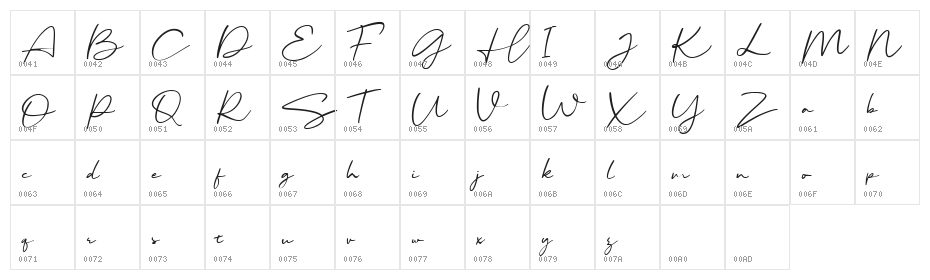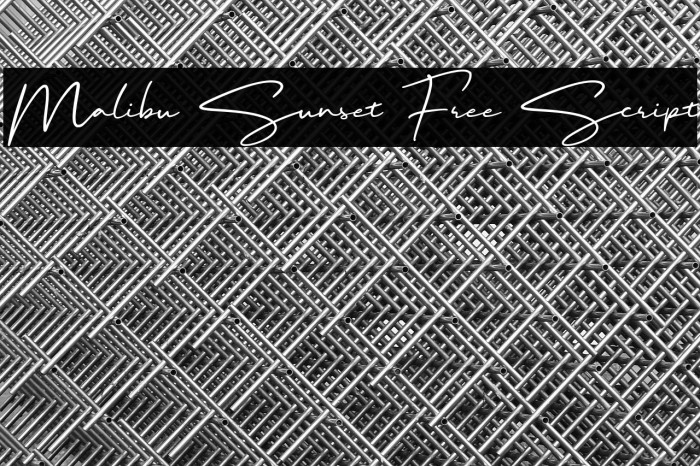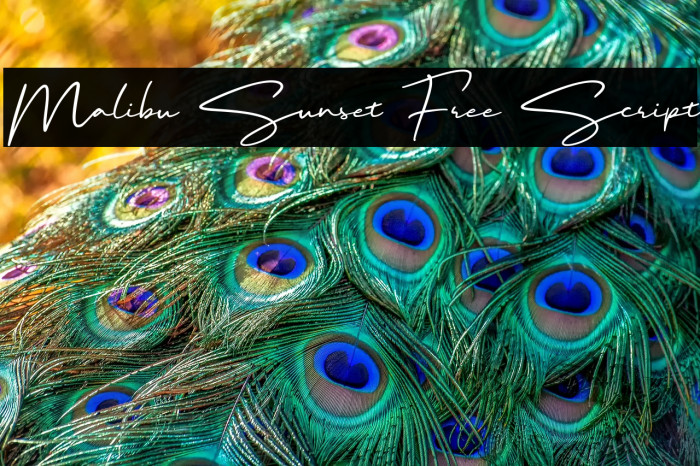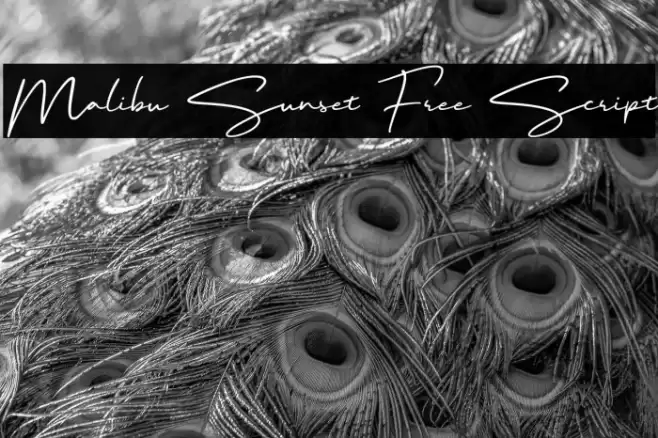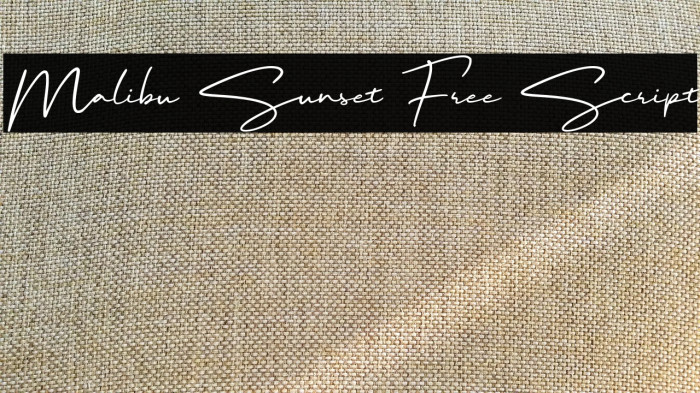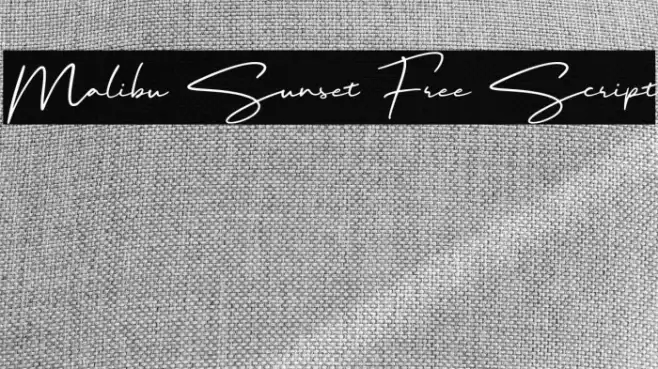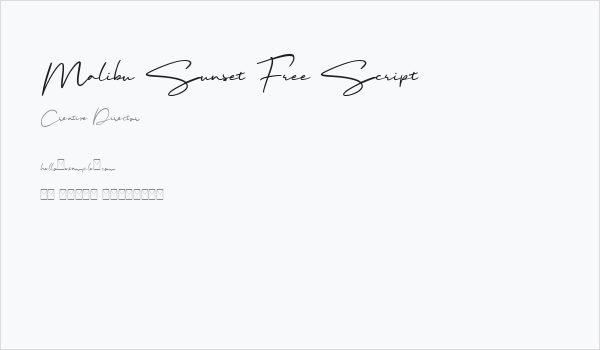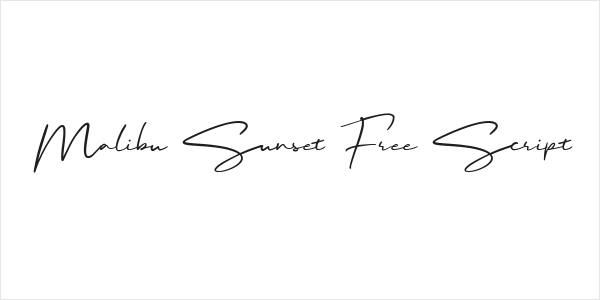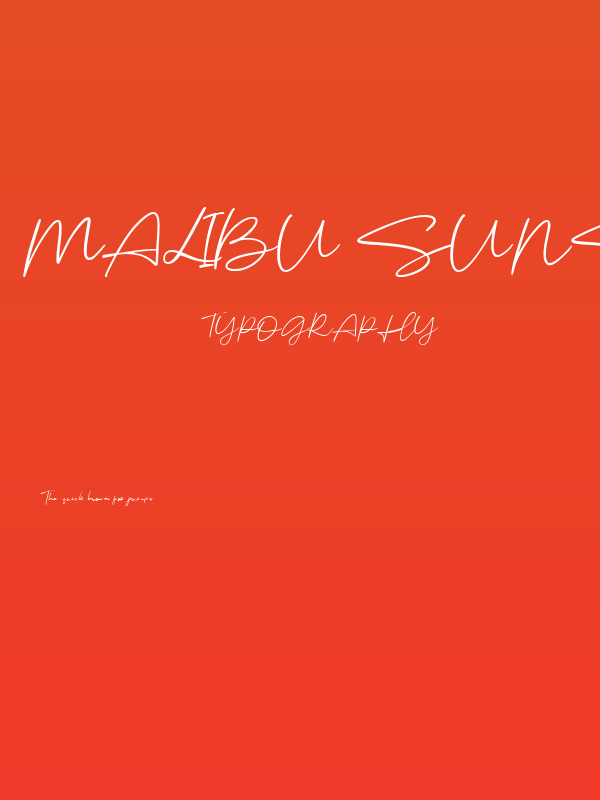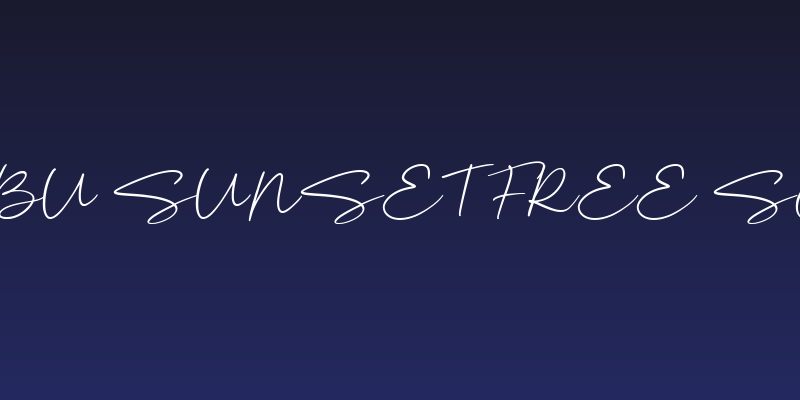
Malibu Sunset Free Script Font
Malibu Sunset Free Script Description
This font exudes a relaxed and casual vibe, reminiscent of handwritten script with a modern twist. The letters are elegantly connected, giving it a fluid and seamless appearance. The strokes are smooth and consistent, with a slight variation in thickness that adds a touch of sophistication. The uppercase letters are bold and prominent, while the lowercase letters maintain a graceful flow. This font is versatile, suitable for a variety of design projects that require a personal and approachable touch. Its clean lines and balanced proportions make it easy to read, while still retaining an artistic flair.
Use CaseLogos, Headlines, Invitations
Proposed ProjectsIdeal for wedding invitations, greeting cards, branding, and social media graphics.